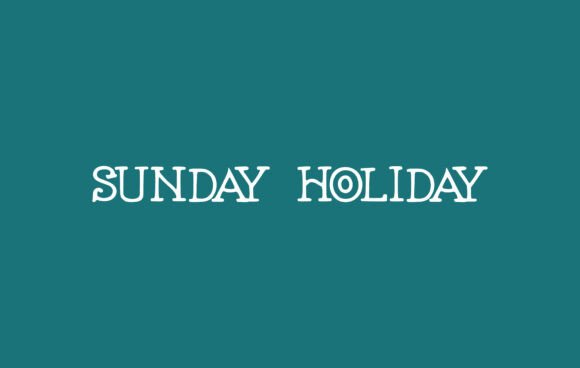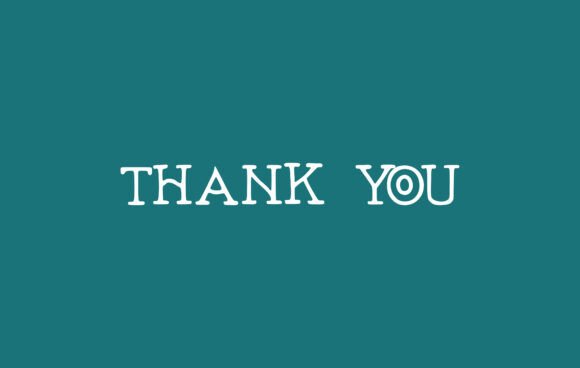
Introducing Adrian Font: The Ultimate Handwritten Font for Creative Expression
Are you a designer, crafty enthusiast, or simply someone who appreciates beautiful typography? Look no further than Adrian Font, an authentic handwritten font that exudes a romantic touch. This expertly designed font is poised to become a true favorite among creative professionals and hobbyists alike, offering endless possibilities for elevating your projects to new heights.
The Characteristics of Adrian Font
Adrian Font boasts a unique blend of elegance and playfulness, making it an incredibly versatile addition to any design arsenal. Its most notable features include:
- Legibility: Despite its handwritten nature, Adrian Font remains remarkably legible, even at smaller sizes. This makes it perfect for use as both title and body text, offering flexibility in a wide range of applications.
- Romantic Touch: The font’s subtle imperfections and fluid strokes evoke a sense of warmth and personality, adding an emotional depth to your designs that is hard to achieve with more traditional typefaces.
- Authentic Handwritten Feel: Unlike generic or overly stylized fonts, Adrian Font captures the essence of genuine handwriting. This lends a personal, relatable quality to your work, setting it apart in a crowded creative landscape.
Endless Applications for Adrian Font
The versatility of Adrian Font is one of its most compelling attributes. Its range of applications is vast, making it an invaluable asset for:
- Magazine Headlines: Add a touch of sophistication and whimsy to your magazine or editorial designs with Adrian Font. Its unique character is sure to capture readers’ attention and enhance the visual appeal of your content.
- Social Media Graphics: Elevate your social media presence with eye-catching graphics that showcase Adrian Font’s distinctive charm. Whether you’re creating promotional posts, stories, or ads, this font will help your brand stand out.
- Branding and Logotypes: Establish a strong brand identity with Adrian Font. Its memorable and friendly appearance makes it ideal for crafting logos, business cards, and other branding materials that reflect your company’s personality.
- Wedding Invitations and Stationery: Bring a romantic, bespoke feel to wedding invitations, cards, and other stationery with Adrian Font. Its elegant yet approachable style perfectly complements a variety of design themes and wedding aesthetics.
Why Choose Adrian Font?
In a world where design trends come and go, Adrian Font stands out for its timeless appeal and adaptability. Here are just a few reasons why designers and crafters are falling in love with this remarkable font:
- Unique yet Versatile: Adrian Font strikes the perfect balance between uniqueness and versatility. It adds a distinctive touch to your designs without overpowering your message or content.
- Easy to Read and Write: The font’s clarity and readability make it a joy to work with, ensuring that your designs communicate effectively with your audience.
- Perfect for Digital and Print: Whether you’re designing for digital platforms or print, Adrian Font performs beautifully across various mediums, providing consistent results that meet your creative needs.
Adrian Font is more than just a typeface; it’s a creative tool that unlocks new possibilities for designers, crafters, and anyone looking to add a personal touch to their projects. Its romantic, handwritten aesthetic combined with its legibility and versatility makes it an indispensable asset in the world of design. Whether you’re aiming to create stunning magazine headlines, captivating social media graphics, memorable branding, or heartfelt wedding invitations, Adrian Font is your key to unlocking a world of creative potential. Embrace the elegance and charm of Adrian Font in your next project and discover the difference it can make.